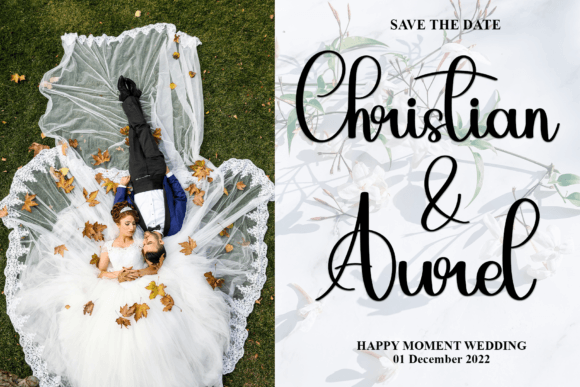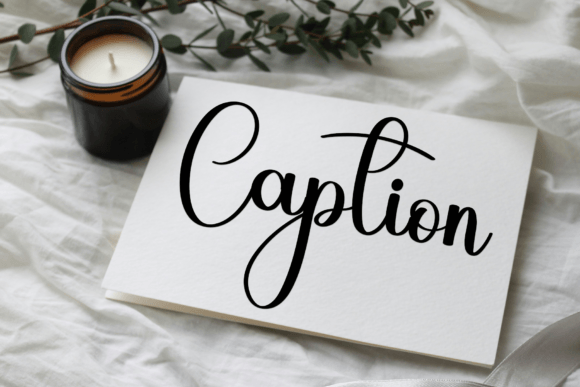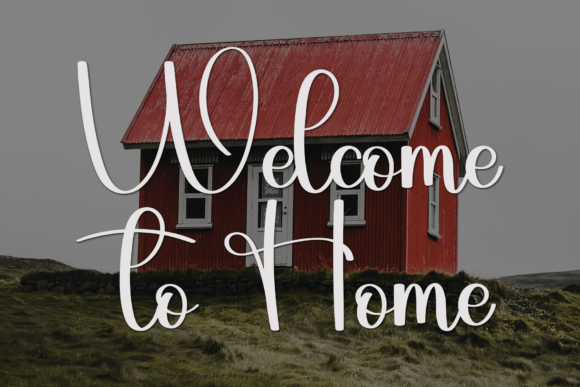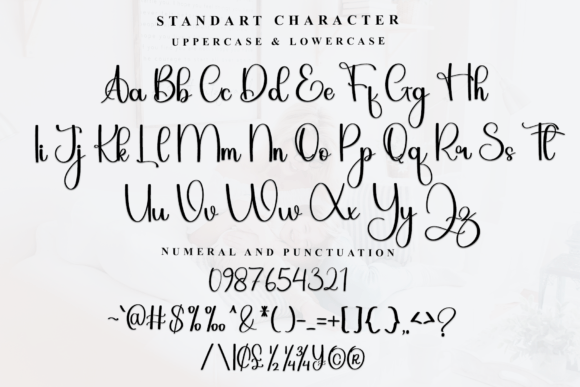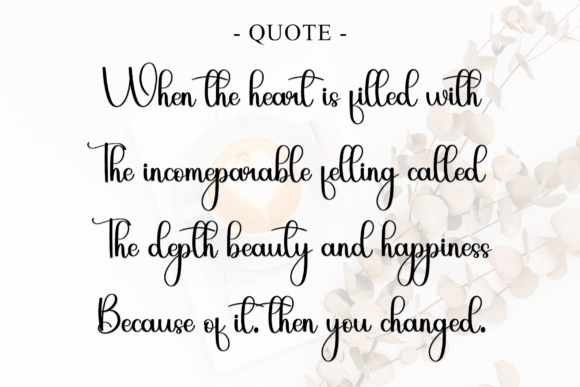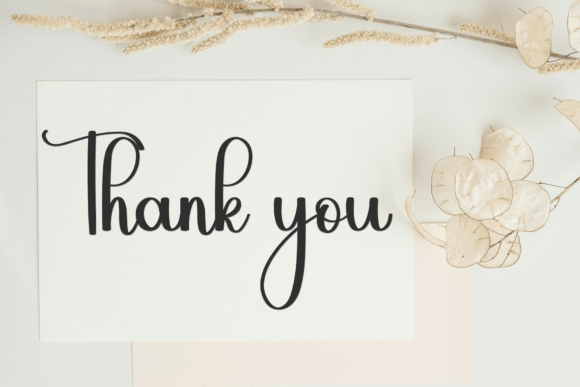
The Perfect Brush Stroke: Introducing Baby Shine Font
Have you ever been in the middle of a creative project, struggling to find the perfect font to bring your vision to life? You’ve tried countless options, but nothing seems to capture the essence of your idea. That’s where Baby Shine Font comes in – a delicate, elegant, and flowing handwritten font that will add a touch of magic to your designs.
Baby Shine Font is more than just a pretty face; it’s a versatile tool that can elevate even the most mundane designs. With its beautiful and well-balanced characters, this font is perfect for adding a personal touch to your projects. Whether you’re a seasoned designer or just starting out, Baby Shine Font is sure to become your new go-to companion.
Baby Shine Font Key Features
- Font Style: A unique, cursive font designed to resemble hand-drawn writing, ideal for creating a personal and whimsical feel.
- Character Set: Includes a comprehensive set of characters, including uppercase and lowercase letters, numbers, and punctuation marks, as well as some special characters and symbols.
- Font Weight: Offers a range of font weights, from light to bold, allowing for flexibility in design and layout.
Designer Review: Baby Shine Font
First of all, I’d like to say that I was really drawn to the whimsical and playful vibe of the Baby Shine Font. ✨ The font has a lovely, hand-drawn feel to it that immediately caught my eye.
Here are some things that I think work well:
- The unique, cursive style that makes it perfect for titles, headings, and other display text.
- The font’s versatility – it can be used in a variety of contexts, from children’s books to fashion brands.
- The fact that it’s highly legible, even at smaller sizes, making it a great choice for digital use.
- The font may not be the best choice for body text, as it can be a bit too ornate and overwhelming for large blocks of text.
- The font’s style may not be to everyone’s taste – some people may find it too childish or over-the-top.
Overall, I think the Baby Shine Font is a great choice for designers who want to add a touch of whimsy and personality to their projects. Just be aware of its limitations and use it judiciously to get the most out of it.
Tips for Getting the Most Out of Baby Shine
For best results, use Baby Shine in combination with bright, pastel colors to create a whimsical and playful atmosphere. You can also experiment with different font sizes and styles to add visual interest to your design.
Baby Shine is perfect for designs that require a touch of sweetness and innocence, such as:
– Children’s party invitations
– Baby shower decorations
– Nursery wall art
– Kid-friendly branding and marketing materials
Alternatives to Baby Shine Font for Designers
Great Vibes Font is a beautiful, handwritten font that adds a touch of elegance to any design. It’s perfect for use in wedding invitations, quotes, and other creative projects where a unique and stylish font is required. Great Vibes Font has a more refined and sophisticated look compared to Baby Shine Font, which can appear more playful and casual.
Alex Brush Font is a modern, brush-script font that’s ideal for use in logos, headings, and titles. It’s a great alternative to Baby Shine Font for designers who want a more sleek and contemporary look. Alex Brush Font has a more fluid and dynamic feel compared to Baby Shine Font, which can appear more static and two-dimensional.
Carolyna Pro Font is a luxurious, handwritten font that’s perfect for use in high-end branding, packaging, and advertising. It’s a great alternative to Baby Shine Font for designers who want a more premium and sophisticated look. Carolyna Pro Font has a more refined and polished feel compared to Baby Shine Font, which can appear more rough and edgy.
What is the recommended font size for using the Baby Shine Font?
The Baby Shine Font is designed to be used at font sizes ranging from 12 to 48 points. Using font sizes outside of this range may affect the font’s legibility and overall aesthetic. However, feel free to experiment with different font sizes to find the perfect fit for your project.